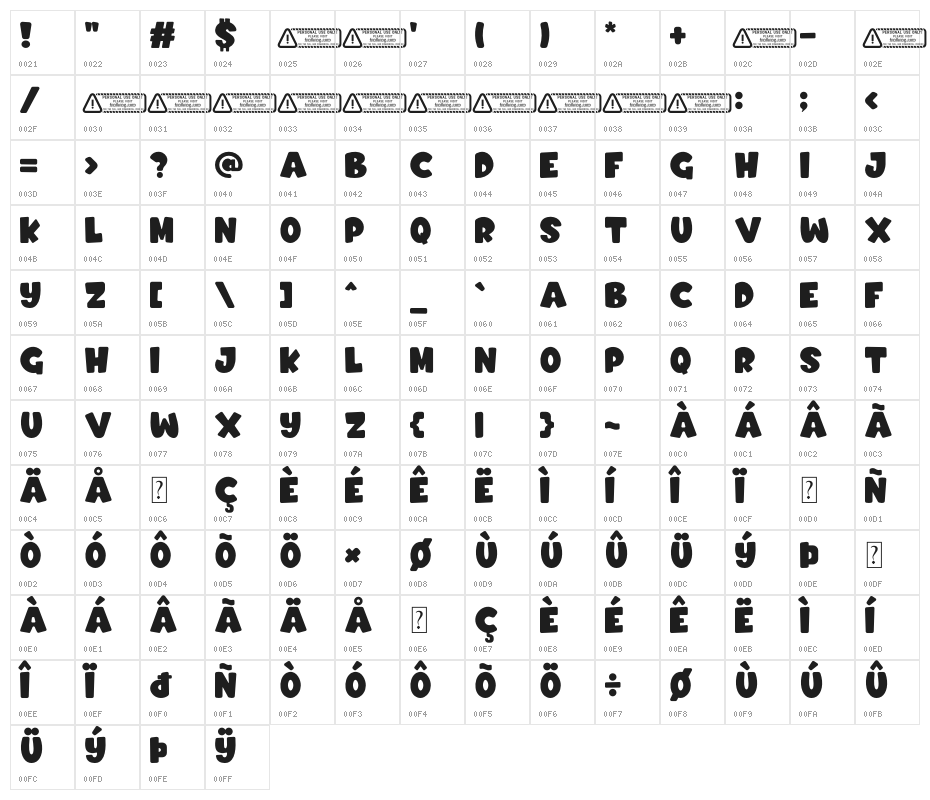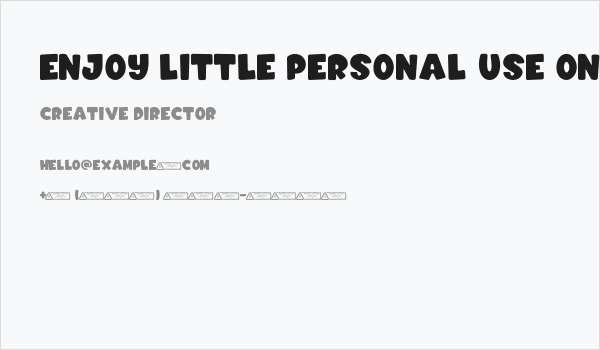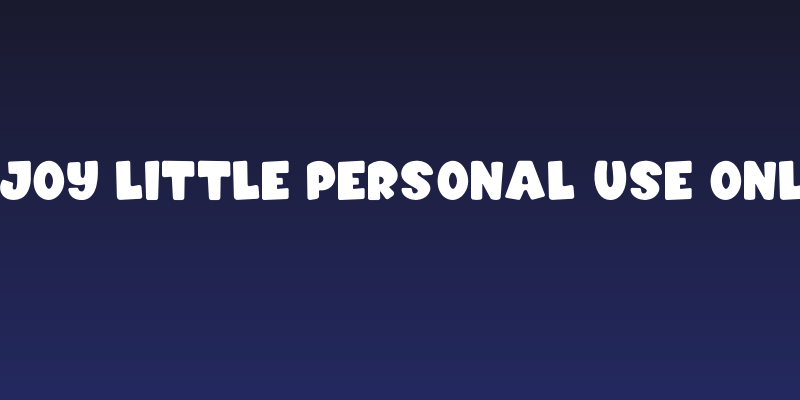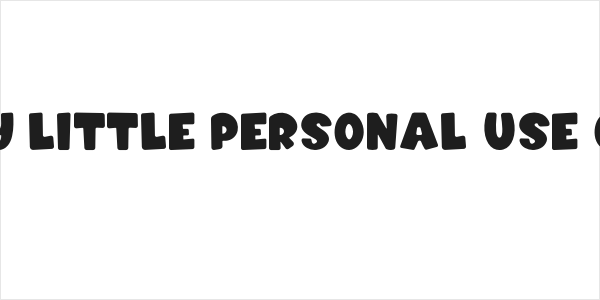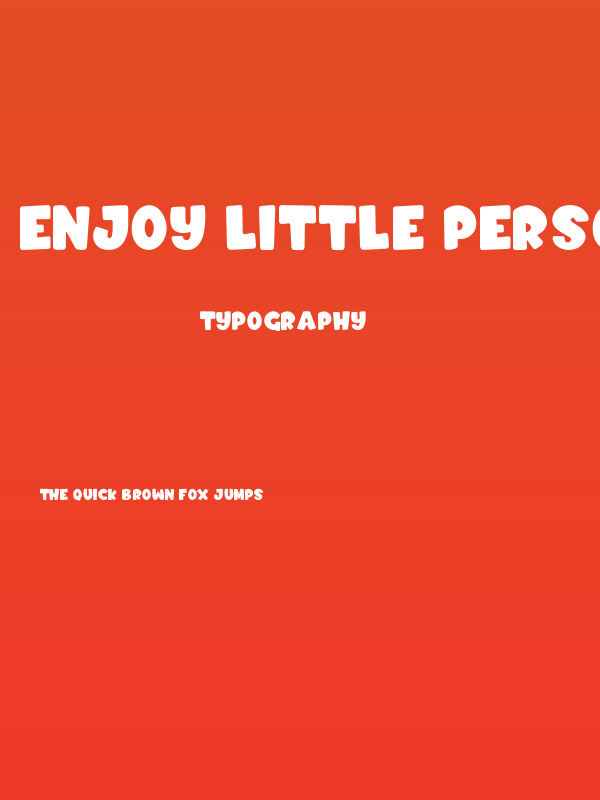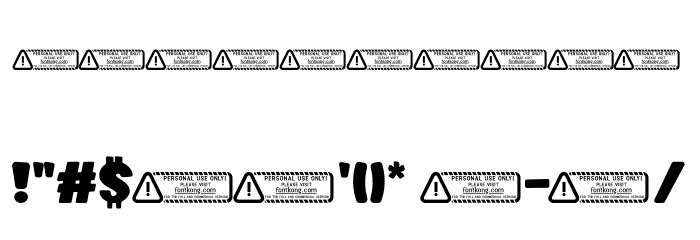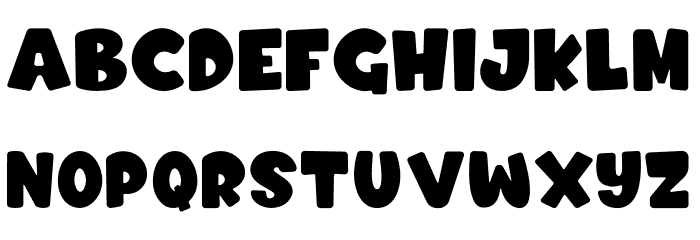
Enjoy Little PERSONAL USE ONLY! Font
| Gesamtstil | Playful, Whimsical |
| Vorgeschlagene Projekte | Perfect for children's books, playful branding, party invitations, and casual social media graphics. |